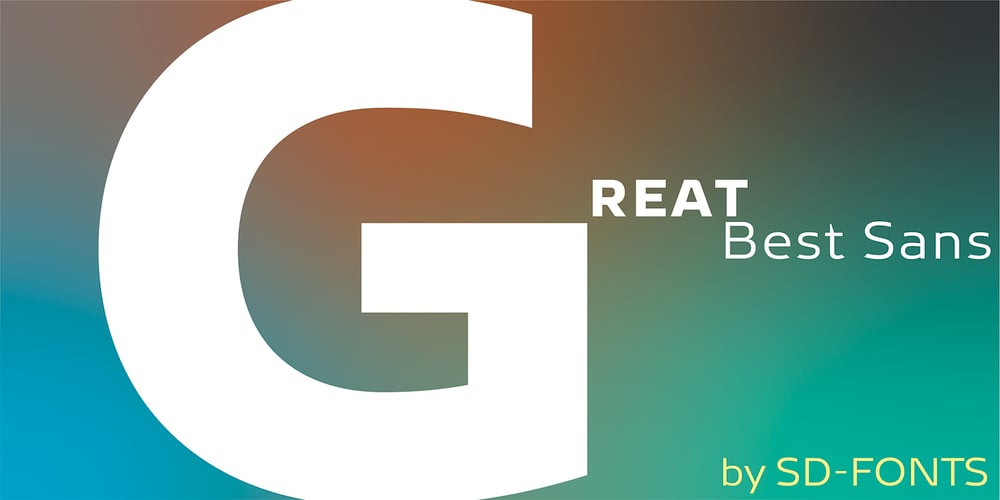
BestSans
BestSans font
BestSans Font Family was designed by Hartmut Schaarschmidt and published by SD Fonts. BestSans contains 6 styles and family package options. BestSans is a complement font to BestSerif, the same characters, just without serifs. Makes both fonts a perfect match. But of course it may also stand alone with its wide, self-assured appearance, approaching the reader in a modern and warm technical way. Moderate curves alternating with sharpe edges provide this distinctive and charming image and create an eye-catching typographical impact.